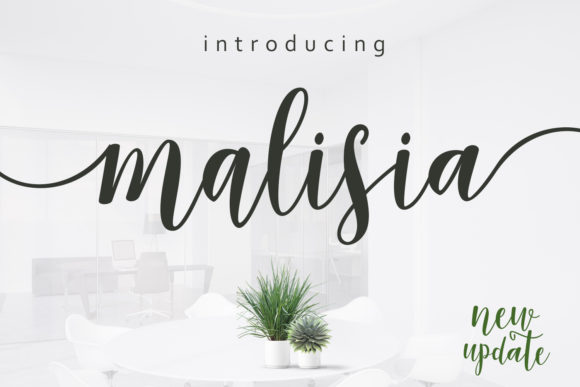
Malisia Script Font: Elevate Your Designs with a Modern and Stylish Touch
In the world of typography, script fonts have always been a popular choice for designers looking to add a touch of elegance and sophistication to their creations. One such font that has gained significant attention in recent times is the Malisia Script Font. This modern and stylish script font is perfect for those who want to add a trendy, natural, and gentle feel to their designs. In this article, we’ll take a closer look at the Malisia Script Font, its features, and how you can use it to elevate your designs.
What is Malisia Script Font?
Malisia Script Font is a beautifully crafted script font that exudes a sense of modernity and style. Its unique design makes it perfect for a wide range of applications, from wedding designs and party invitations to business ideas, marketing materials, and posters. The font’s gentle and natural feel makes it an excellent choice for designers who want to create a warm and inviting atmosphere in their designs.
Key Features of Malisia Script Font
Malisia Script Font comes with a range of features that make it an excellent choice for designers. Some of its key features include:
- Modern and Stylish Design: Malisia Script Font boasts a modern and stylish design that is sure to make your designs stand out.
- Trendy, Natural, and Gentle Feel: The font’s unique design gives it a trendy, natural, and gentle feel that is perfect for a wide range of applications.
- Multilingual Support: Malisia Script Font supports multiple languages, making it an excellent choice for designers who work with clients from different parts of the world.
Use Cases for Malisia Script Font
Malisia Script Font is a versatile font that can be used for a wide range of applications. Here are some use cases where the font can be used:
- Wedding Designs: The font’s elegant and sophisticated design makes it perfect for wedding designs, including wedding invitations, save-the-date cards, and wedding stationery.
- Party Invitations: Malisia Script Font is also great for party invitations, including birthday party invitations, graduation party invitations, and other celebration invitations.
- Business Ideas: The font can be used to create business ideas, including logos, brochures, and other marketing materials.
- Marketing Materials: Malisia Script Font can be used to create marketing materials, including posters, flyers, and social media graphics.
- Posters: The font’s bold and stylish design makes it perfect for posters, including movie posters, event posters, and advertising posters.
Benefits of Using Malisia Script Font
There are several benefits to using Malisia Script Font in your designs. Some of the benefits include:
- Unique and Creative Designs: The font’s unique design allows you to create unique and creative designs that stand out from the crowd.
- Elegant and Sophisticated Feel: Malisia Script Font gives your designs an elegant and sophisticated feel that is sure to impress your clients.
- Easy to Read: The font is easy to read, making it perfect for body text and other applications where readability is important.
- Customizable: The font is highly customizable, allowing you to adjust the font size, color, and style to suit your design needs.
Tips and Tricks for Using Malisia Script Font
Here are some tips and tricks for using Malisia Script Font:
- Use it with a Bold Font: Use Malisia Script Font with a bold font to create a striking contrast.
- Experiment with Different Colors: Experiment with different colors to find the perfect color scheme for your design.
- Pay Attention to Kerning: Pay attention to kerning to ensure that the font looks professional and polished.
- Use it for Headings: Use Malisia Script Font for headings and titles to add a touch of elegance and sophistication.
Malisia Script Font is a modern and stylish script font that is perfect for designers who want to add a touch of elegance and sophistication to their designs. With its unique design, PUA encoding, and multilingual support, the font is perfect for a wide range of applications, from wedding designs and party invitations to business ideas, marketing materials, and posters. By following the tips and tricks outlined in this article, you can create stunning designs that showcase the beauty of Malisia Script Font.